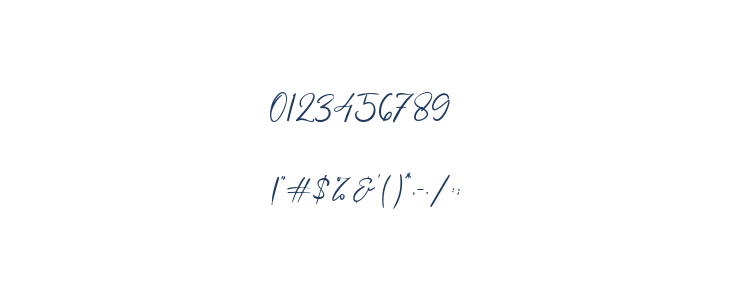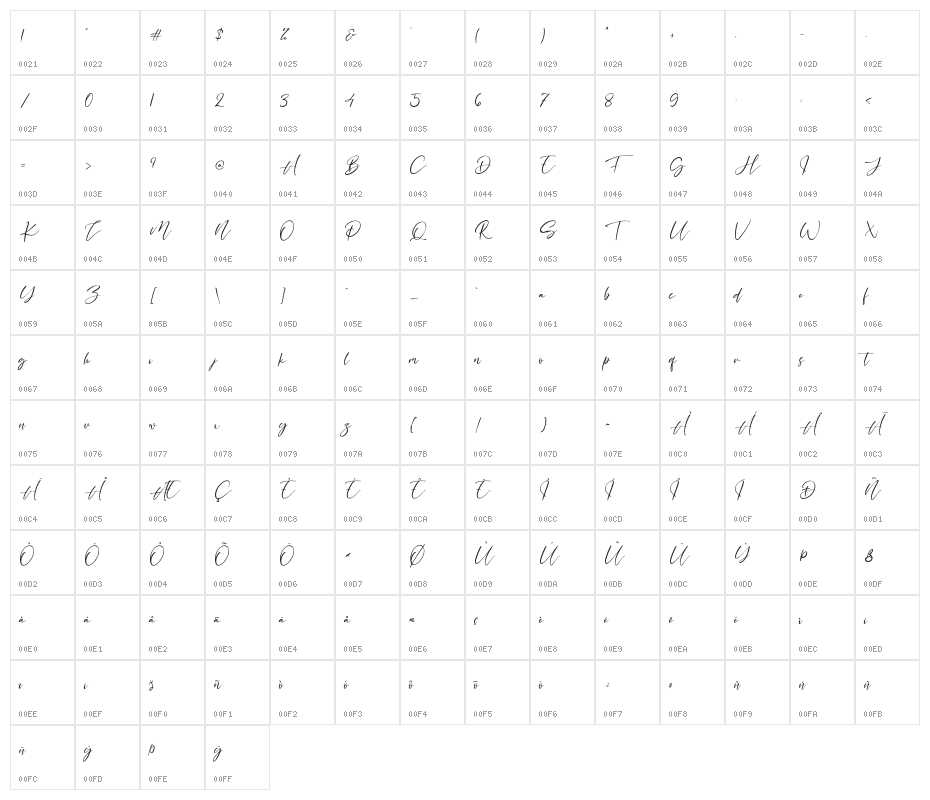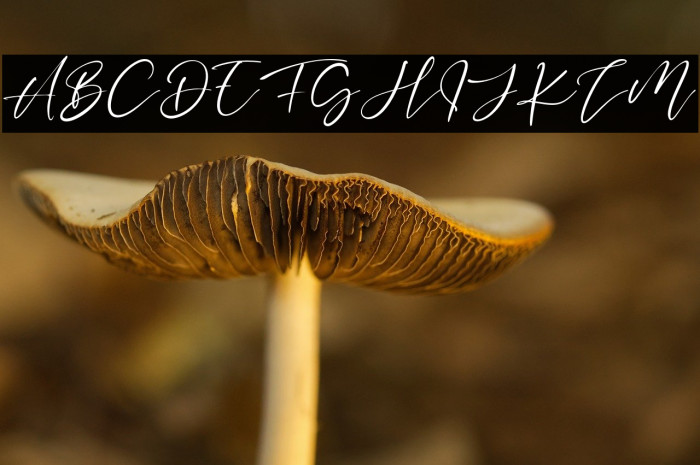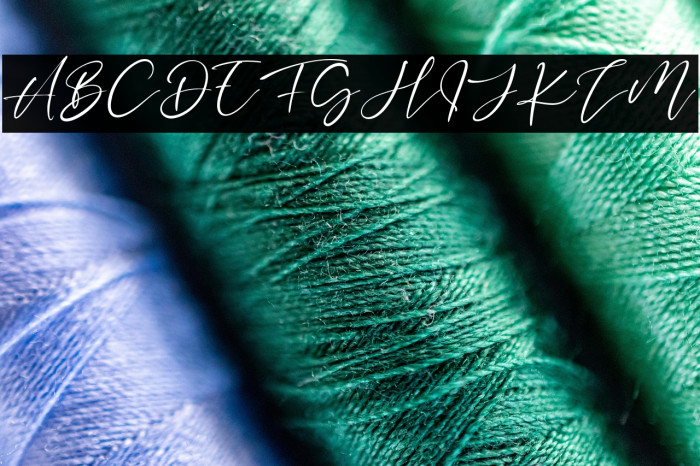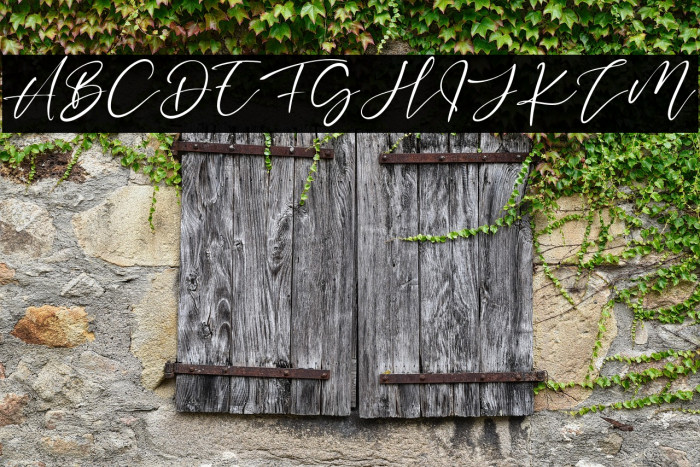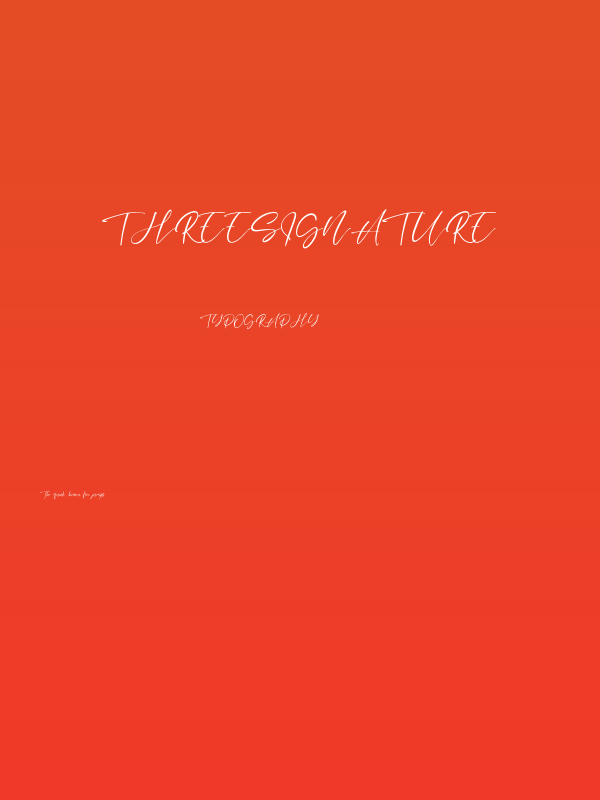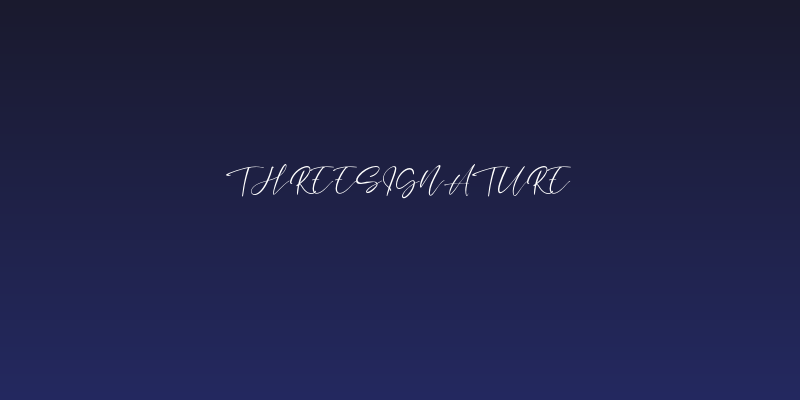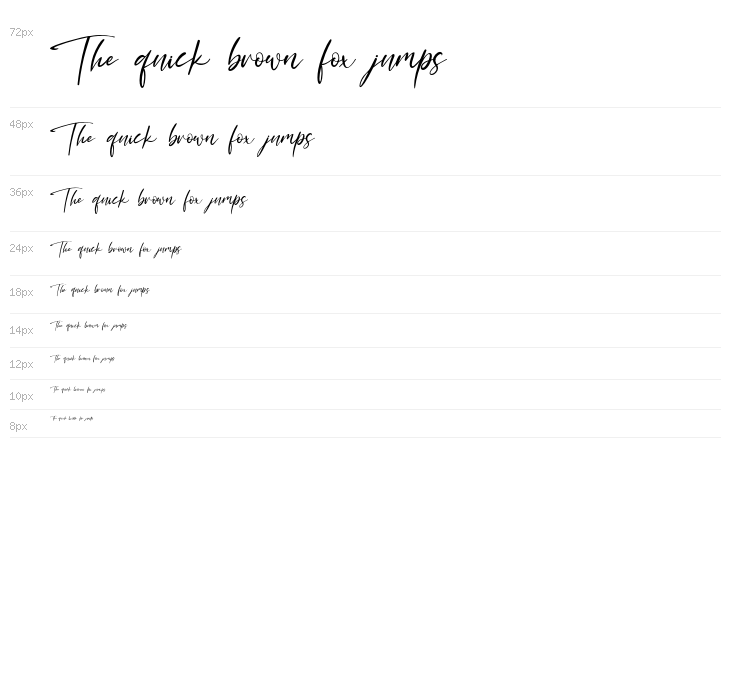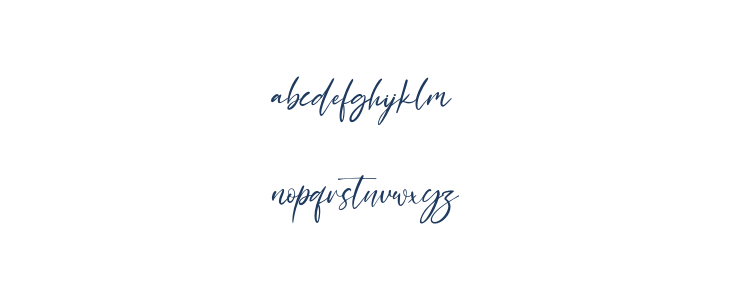
ThreeSignature Font
ThreeSignature Description
This elegant script font features fluid, cursive strokes that emulate the natural flow of handwriting. The uppercase letters are gracefully elongated with sweeping curves, while the lowercase letters maintain a consistent, flowing style that enhances readability. The numerals and special characters are designed to complement the overall aesthetic, maintaining the same fluidity and elegance. This font exudes a sense of sophistication and personal touch, making it ideal for projects that require a handwritten feel. The consistent stroke width and smooth transitions between characters add to its charm, making it suitable for a variety of design applications.
| Overall Style | Elegant, Handwritten |
| Use Case | Logos, Invitations, Personal branding |
| Proposed Projects | Ideal for wedding invitations, personal branding, greeting cards, and elegant packaging designs. |